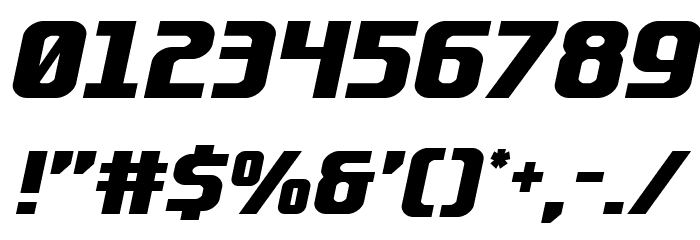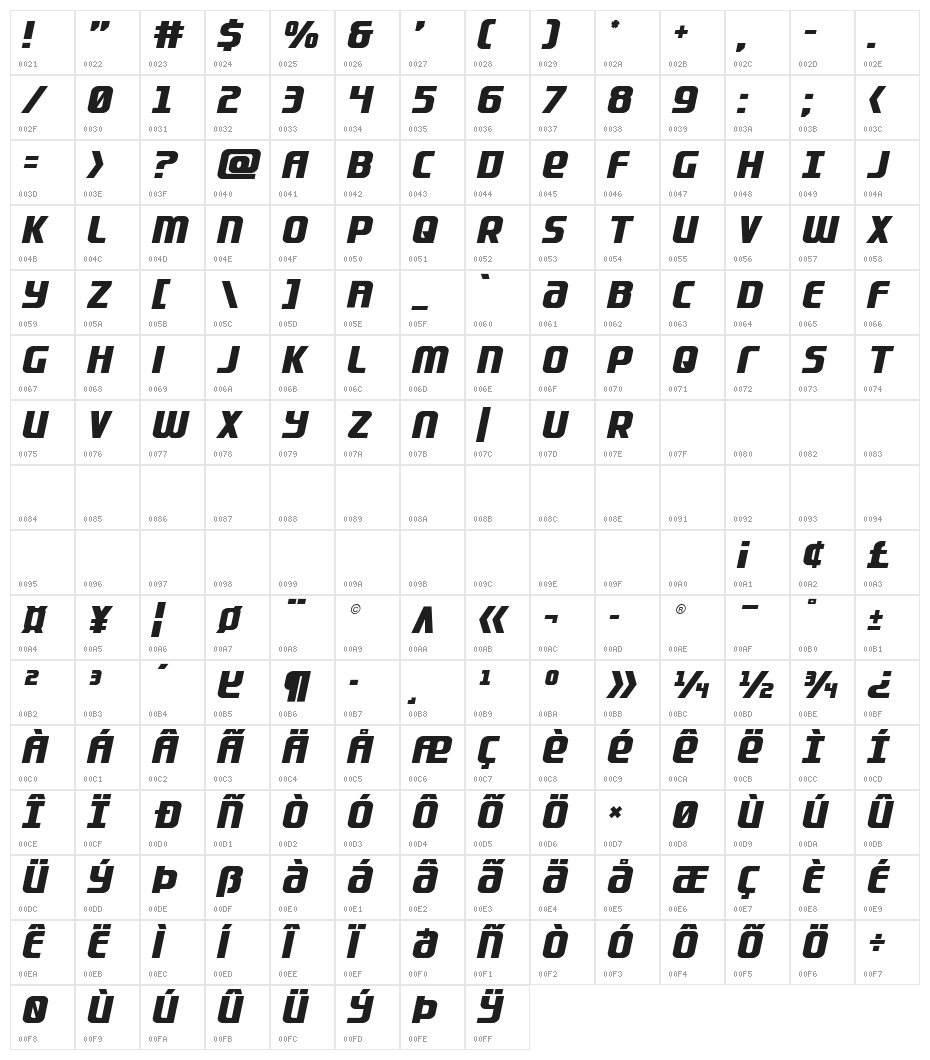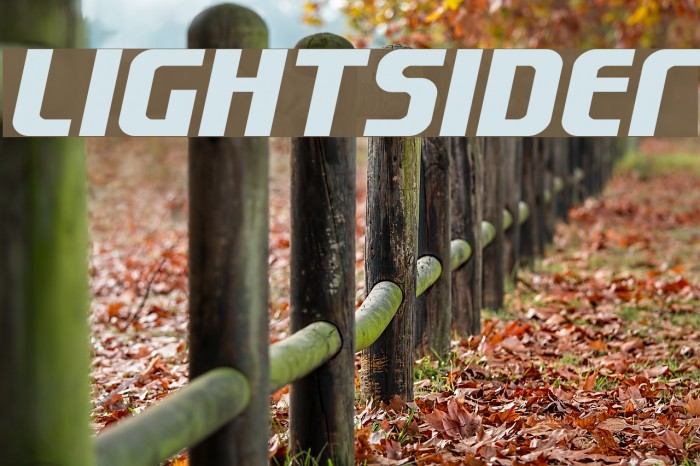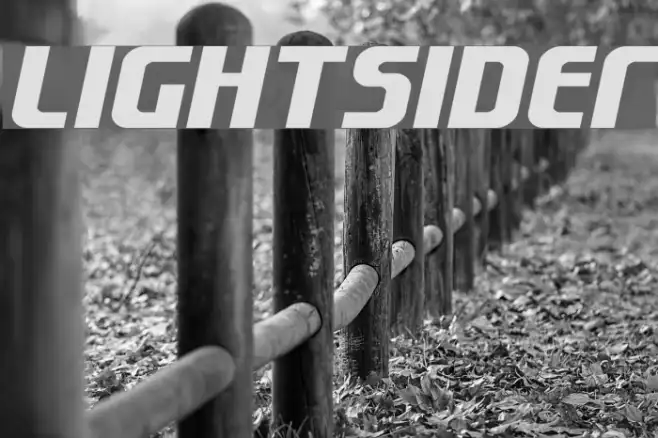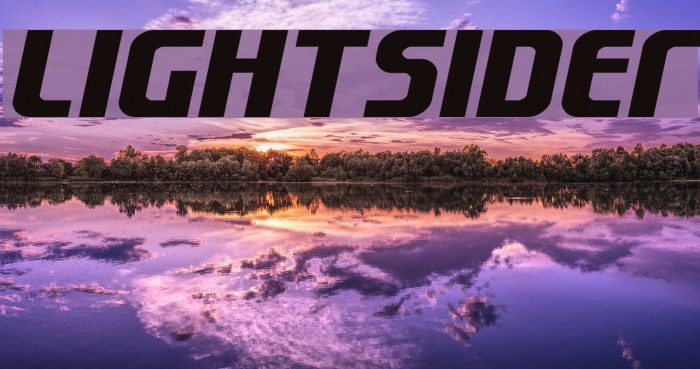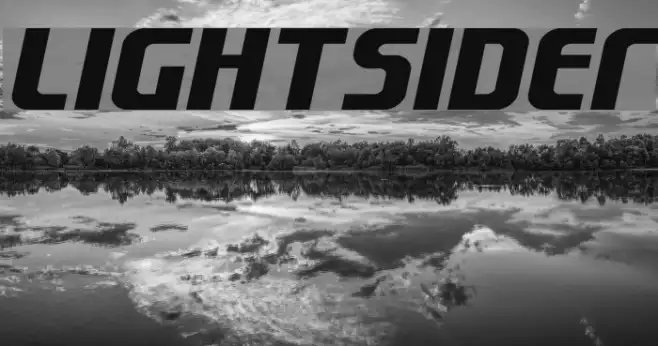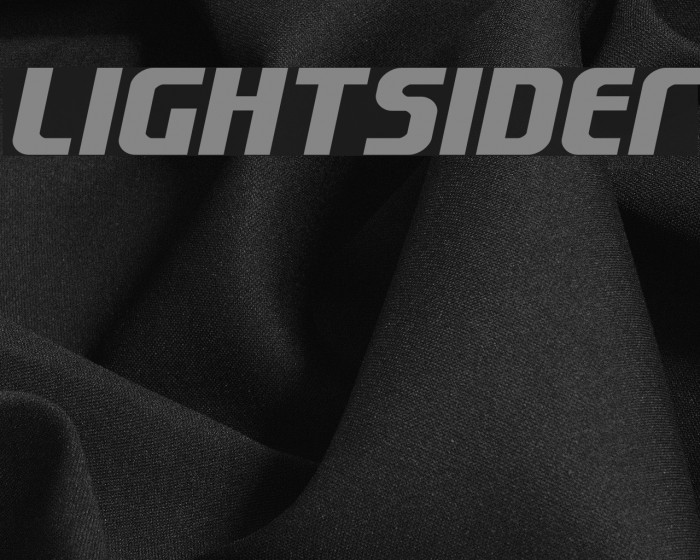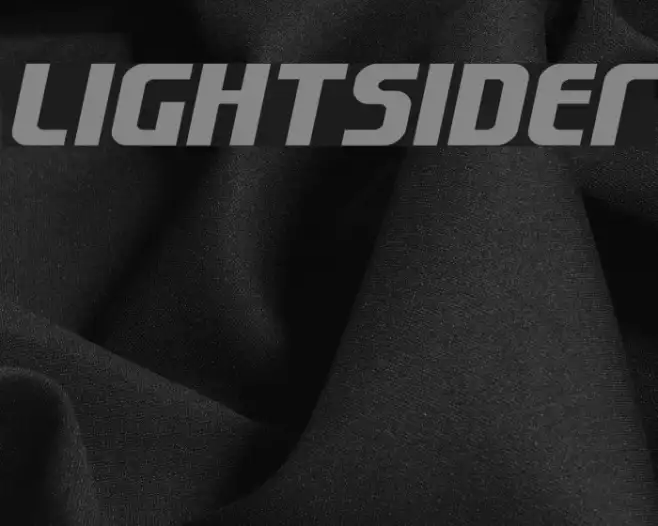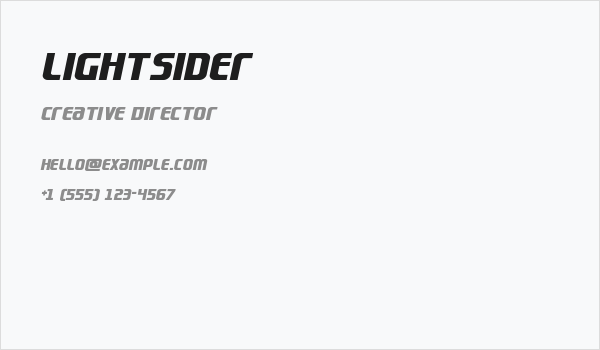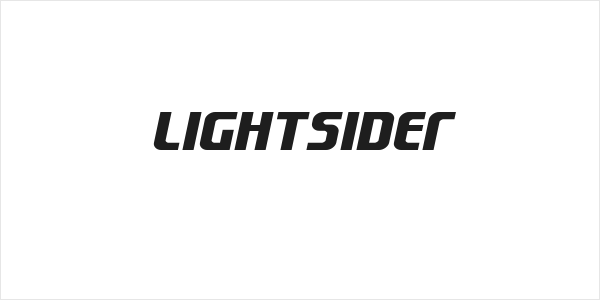
Lightsider Font
Lightsider Description
This font features a bold and modern design with a slightly italicized slant, giving it a dynamic and energetic appearance. The characters are well-defined with a geometric structure, emphasizing clarity and readability. The uppercase and lowercase letters maintain a consistent style, while the numerals and special characters complement the overall aesthetic. The font's strong presence makes it suitable for impactful designs, where attention is key. Its clean lines and contemporary feel make it versatile for various applications.
| Use Case | Headlines, Logos, Advertising |
| Proposed Projects | Ideal for branding, sports team logos, advertising campaigns, and digital media where a strong, modern presence is desired. |